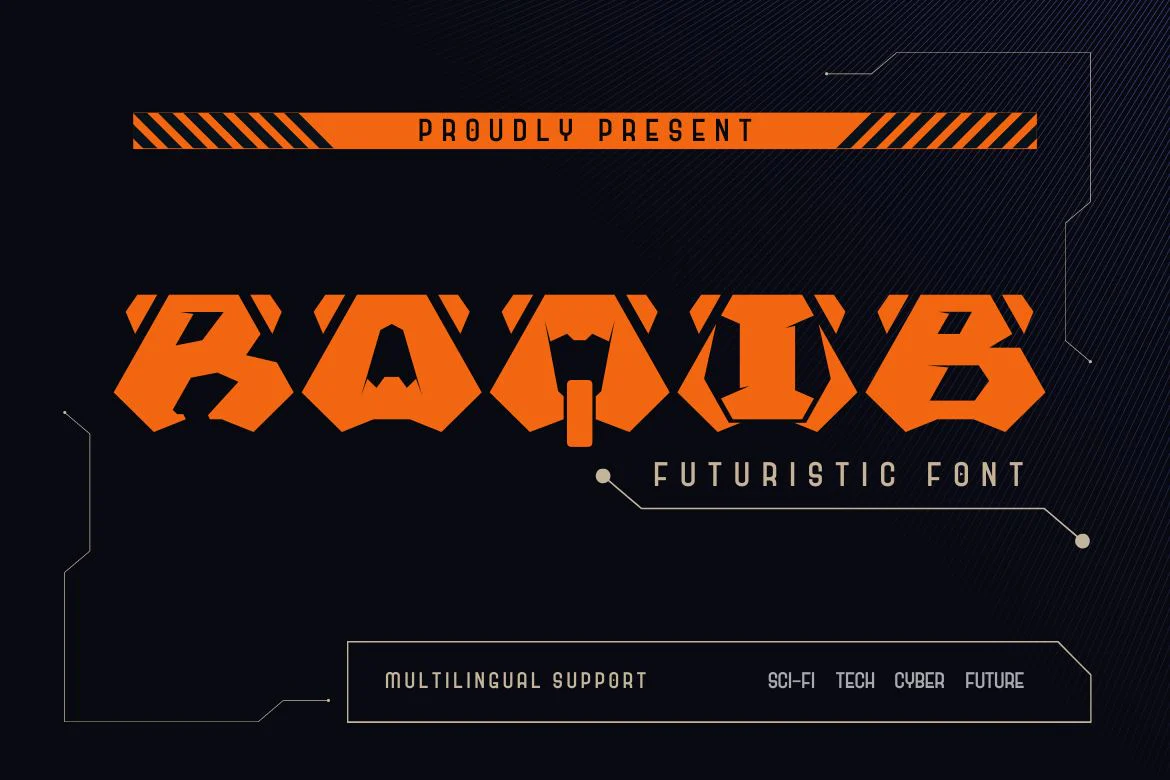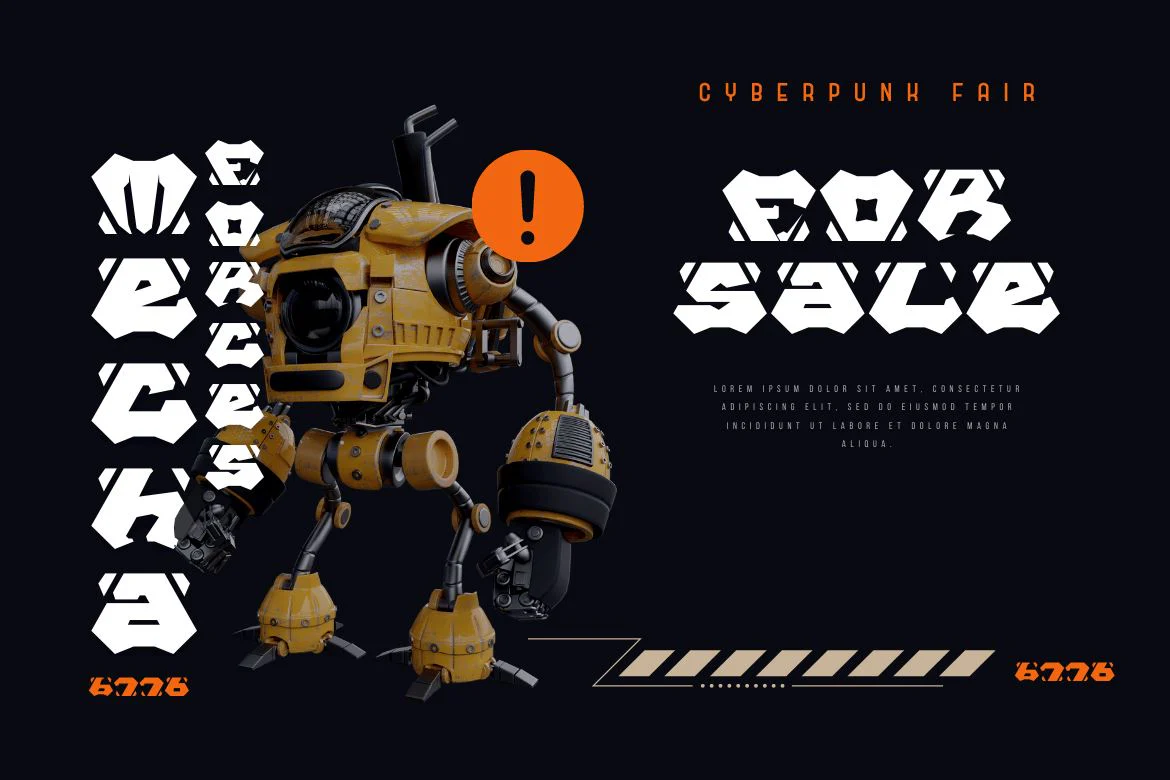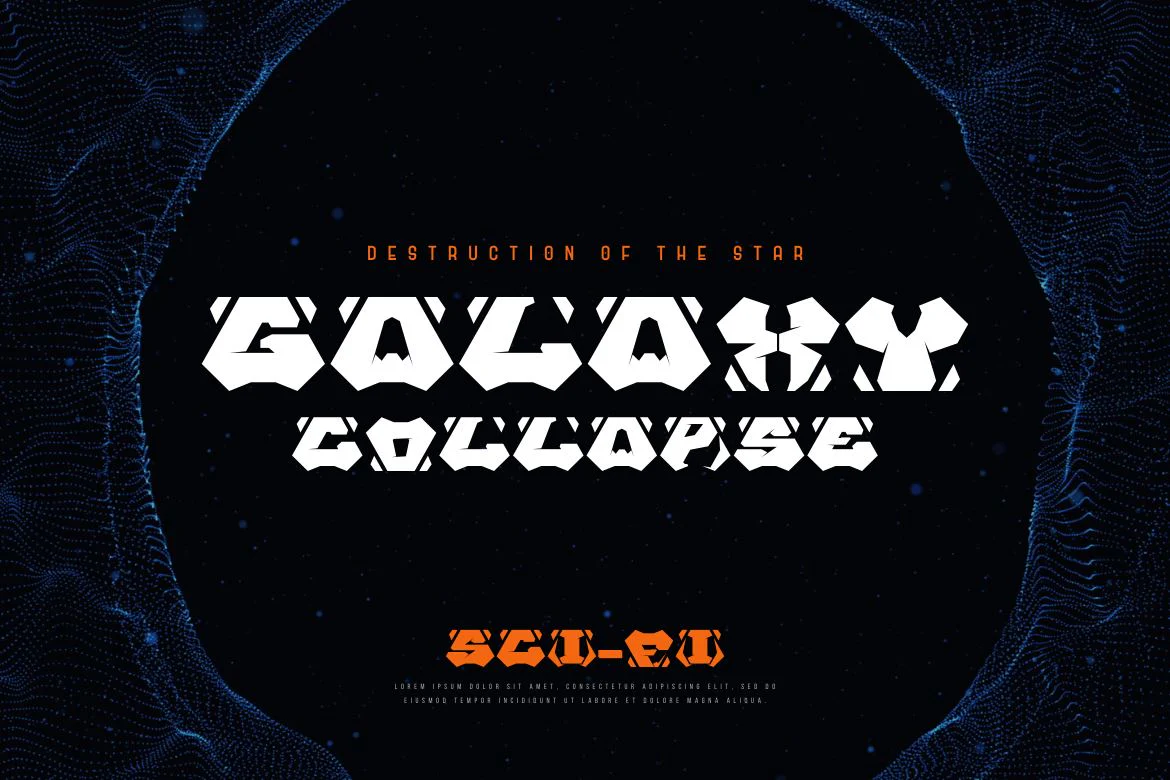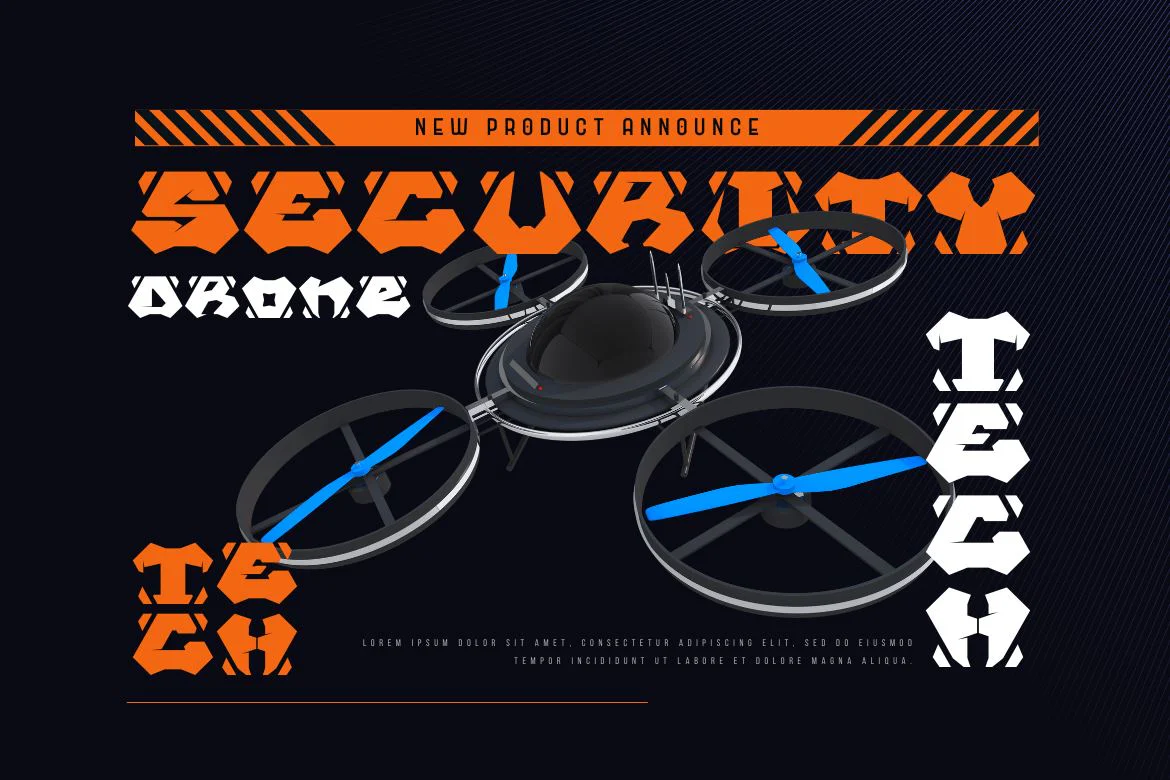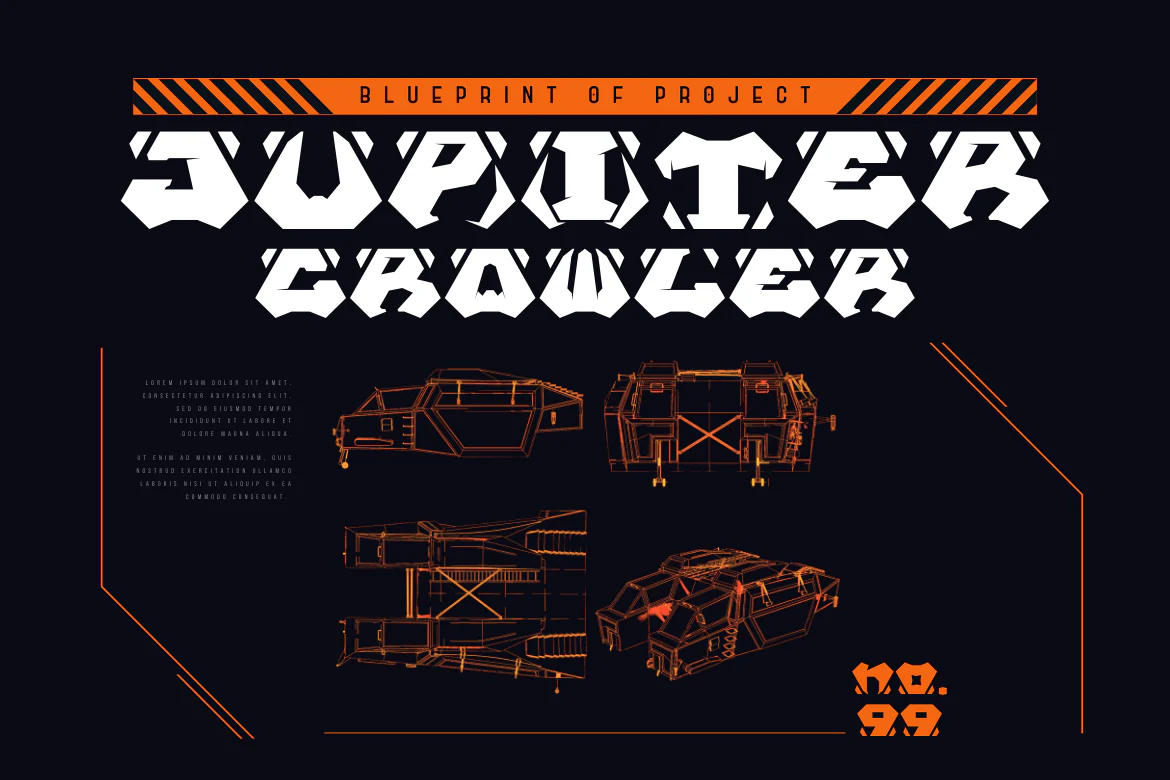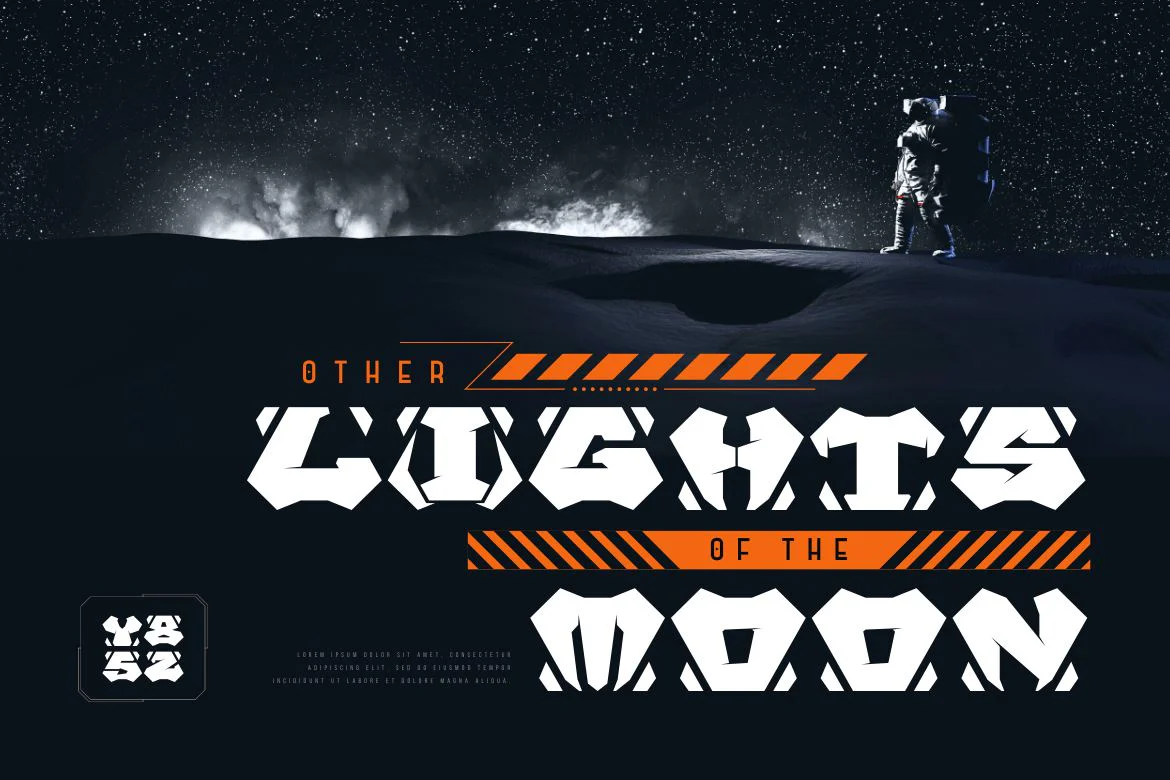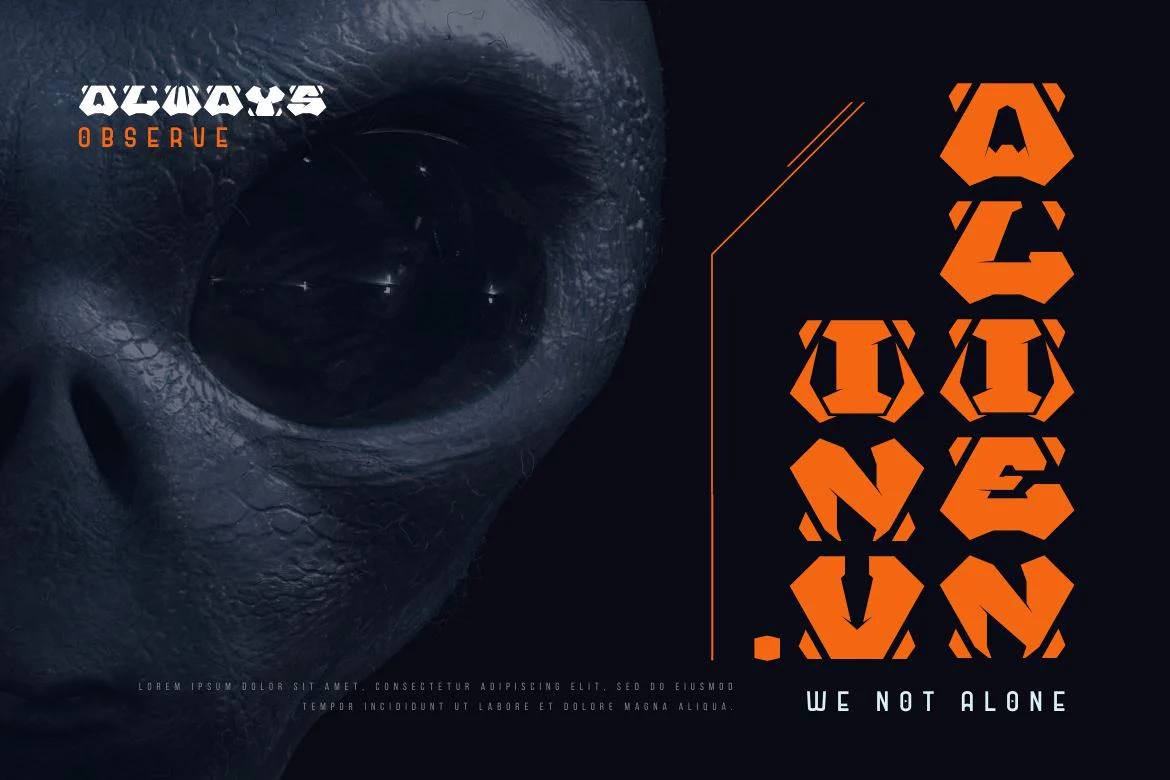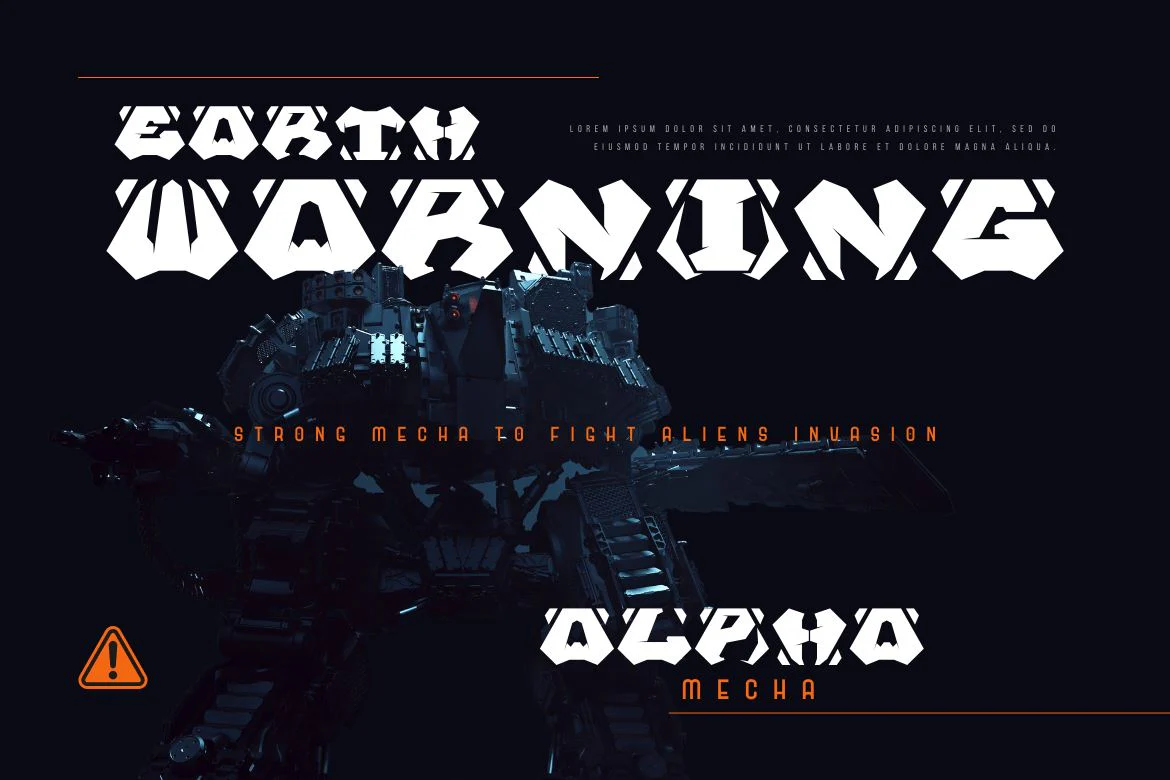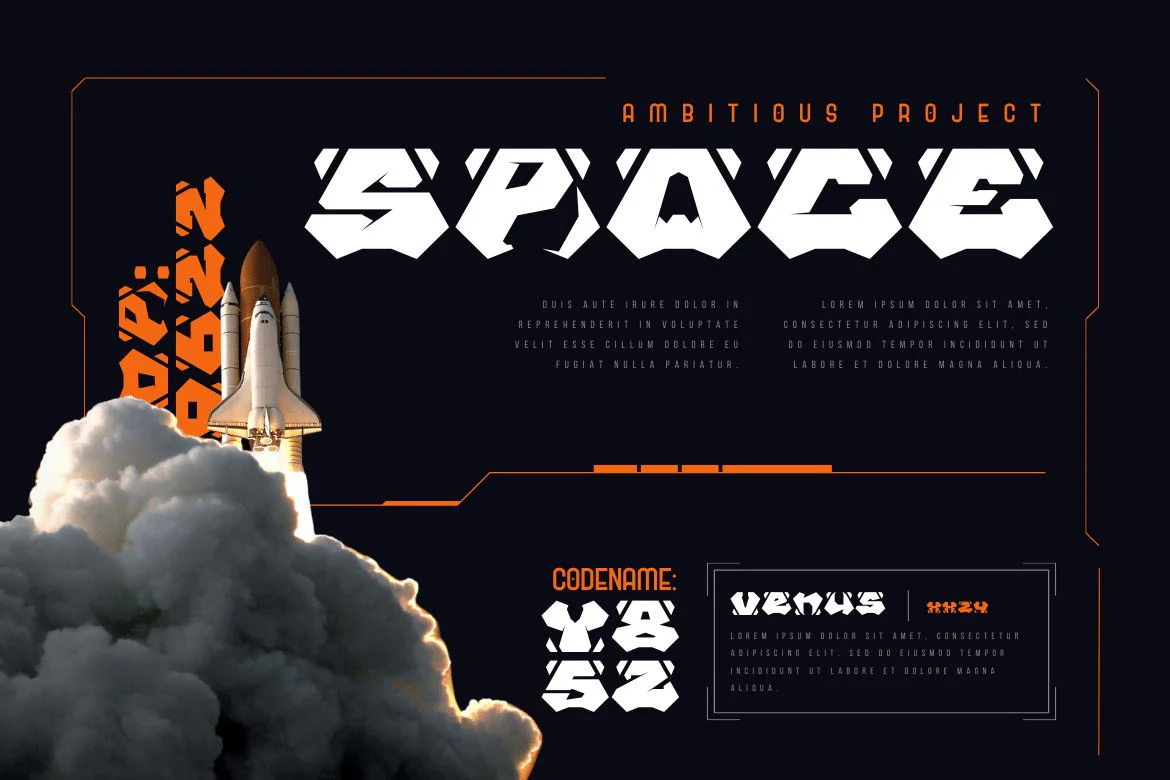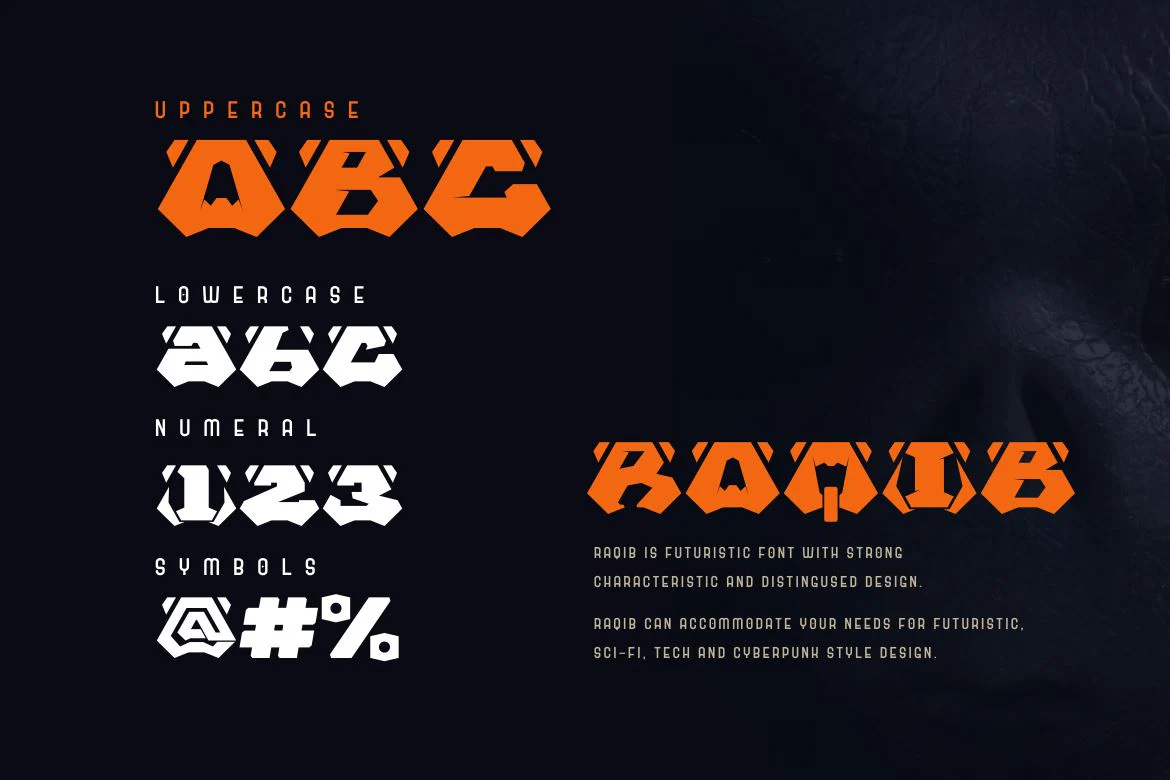
Raqib | Futuristic Font
Introducing Raqib, a distinctive and eye-catching font that gives any project a robotic, sci-fi edge. Raqib is ideal for creating futuristic and intriguing designs due to its bold font shape and distinctive robot style.
Raqib is the ideal option if you’re working on a project with a sci-fi theme or want to incorporate robotics into your branding. Because of its bold design, it’s perfect for headlines, posters, and social media graphics, and its distinctive font shapes give your text a standout, memorable appearance.
For those looking to stand out in the modern era and add a touch of innovation and futurism to their designs, the Raqib font is ideal. This font is a must-have for anyone looking to create designs that really stand out.